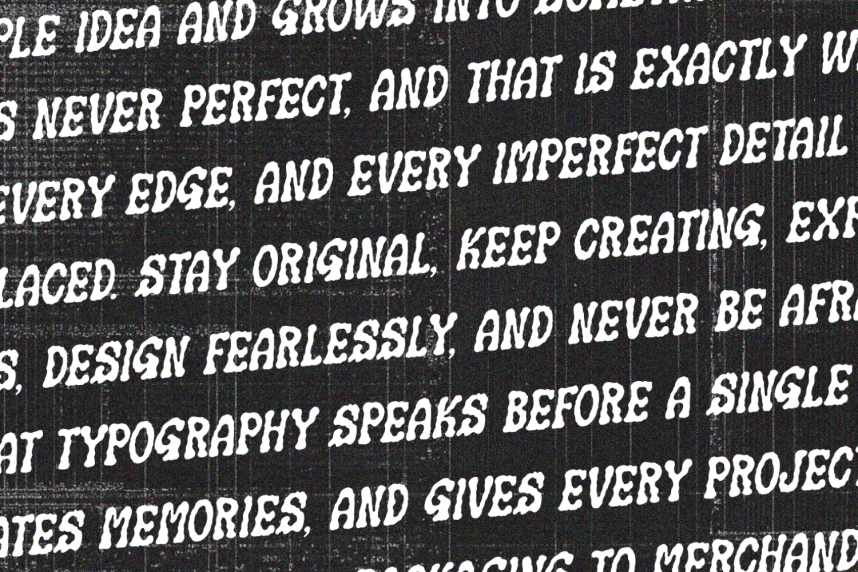
Mireforge – Organic Display Font
Mireforge – Organic Display Font is a bold organic display font inspired by handmade craftsmanship and vintage aesthetics. Perfect for branding, logos, posters, packaging, apparel, merchandise, and any project that needs a distinctive and authentic look.